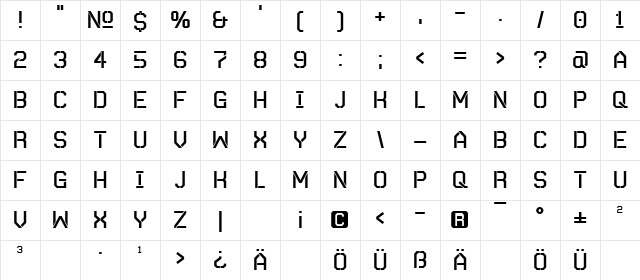
Autobahn Stencil borrows the utilitarian aesthetic of stencil lettering, with its characteristic cutaways and no-frills construction lending an industrial edge.
Pro Tip: Use Autobahn Stencil at large sizes on packaging, posters, or apparel where the stencil cutaways read clearly. Avoid small sizes where those gaps become visual noise.